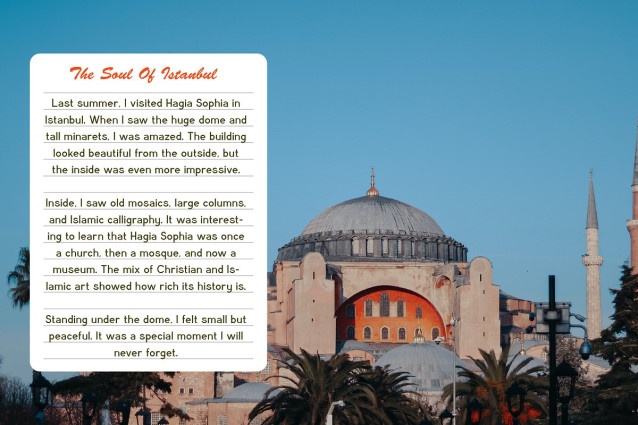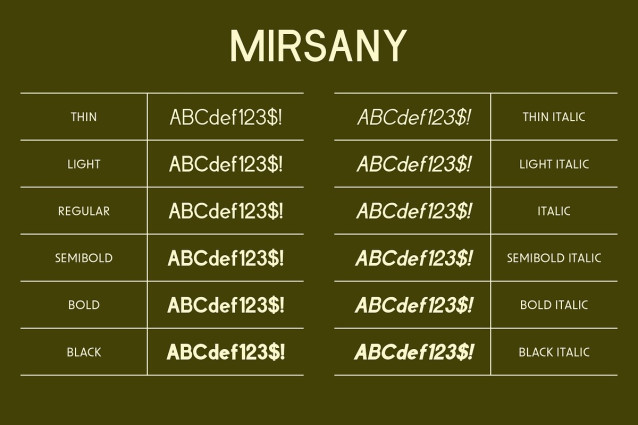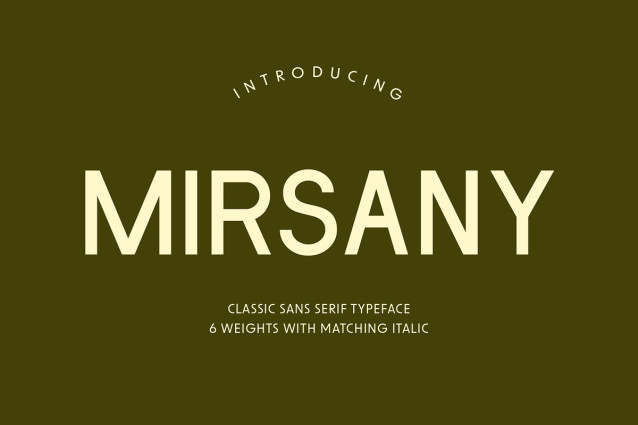
Mirsany Font
Mirsany Font is a very perfect choice for your logos, headlines, and body text alike. With clean line and strong characters, you can easily create a cohesive look for your brand or project. Plus, its simplicity makes it easy to read and comprehend, so you can be sure your message is getting across loud and clear.
| Classification: | Body Text Fonts, Modern Fonts, Sans Serif Fonts |